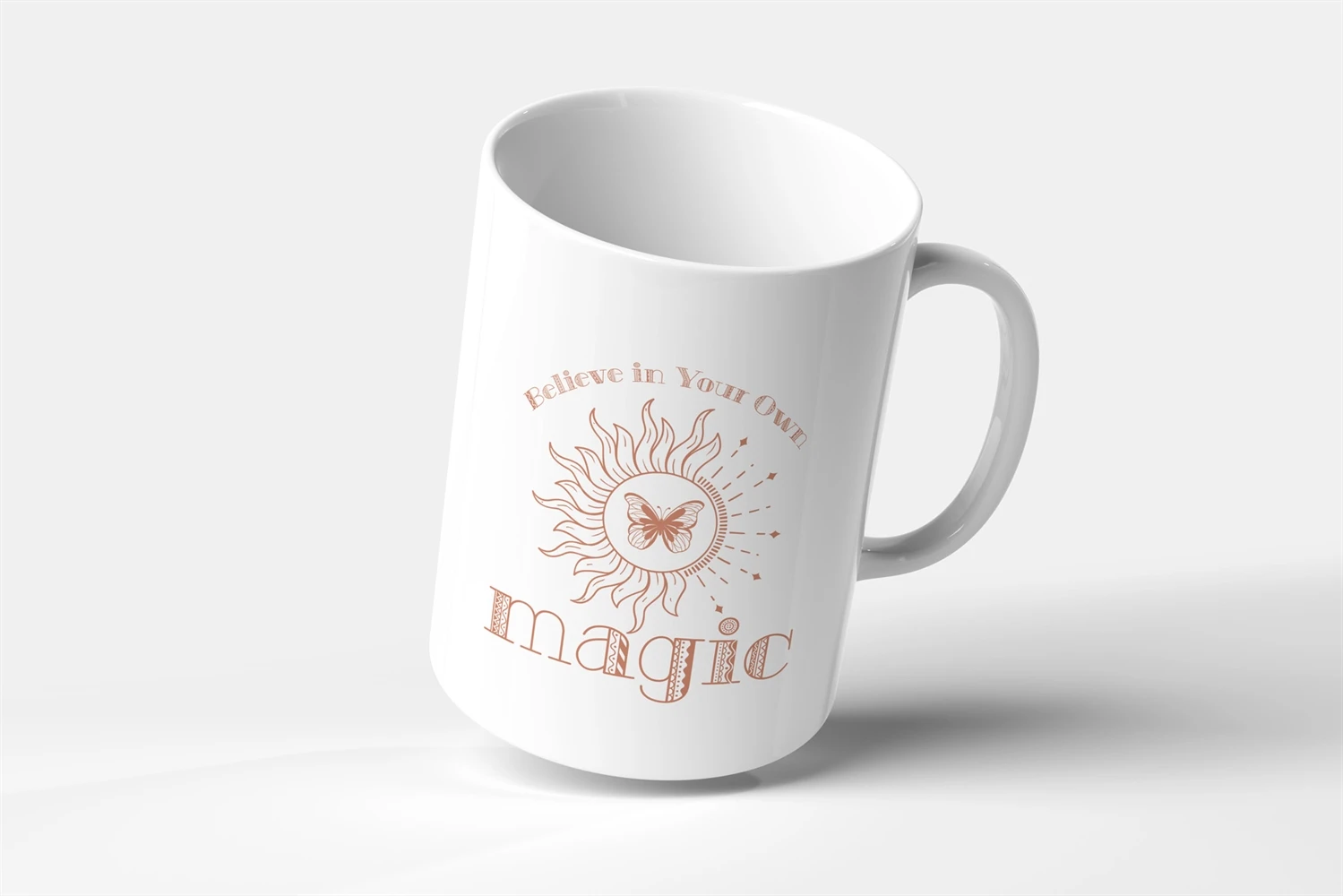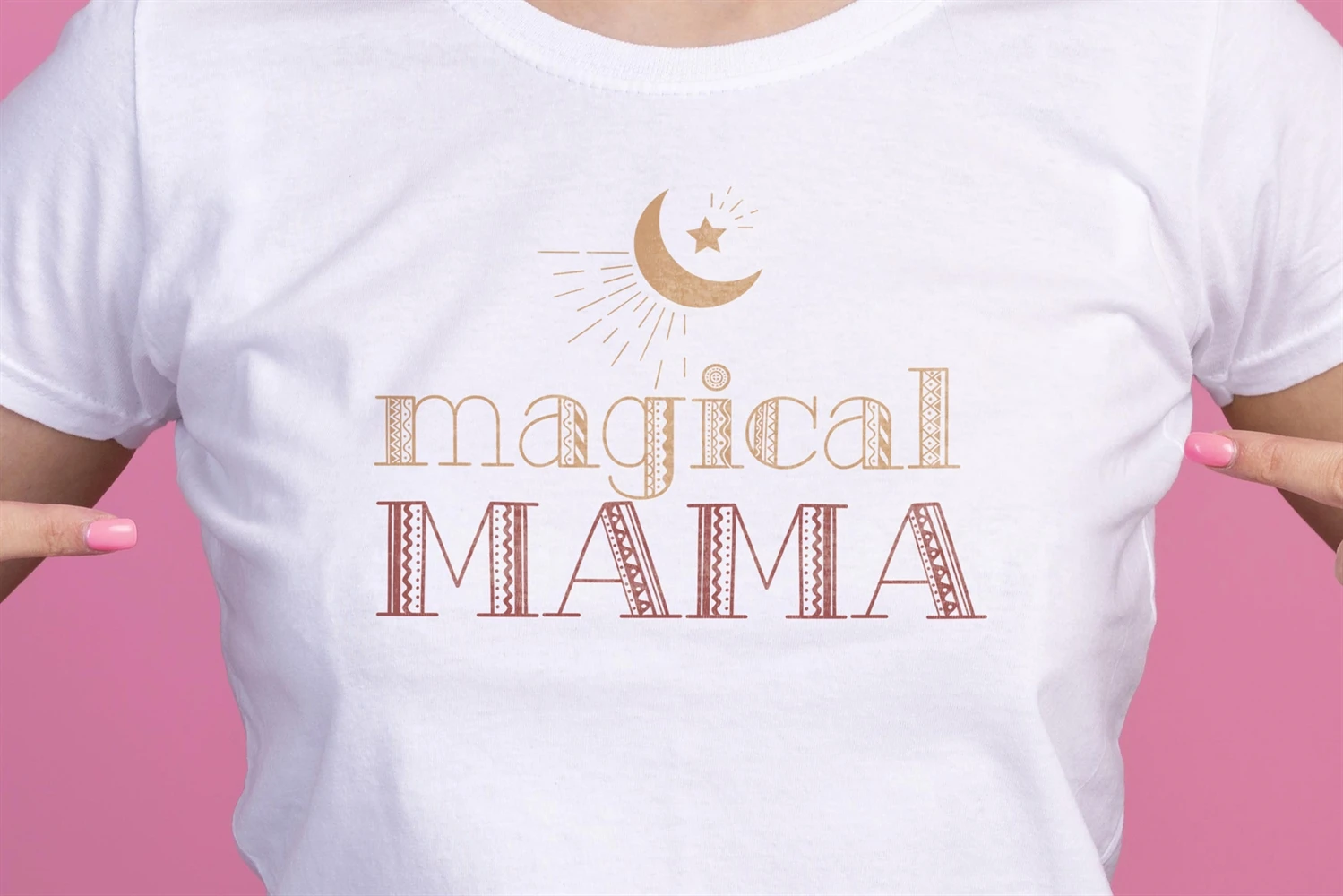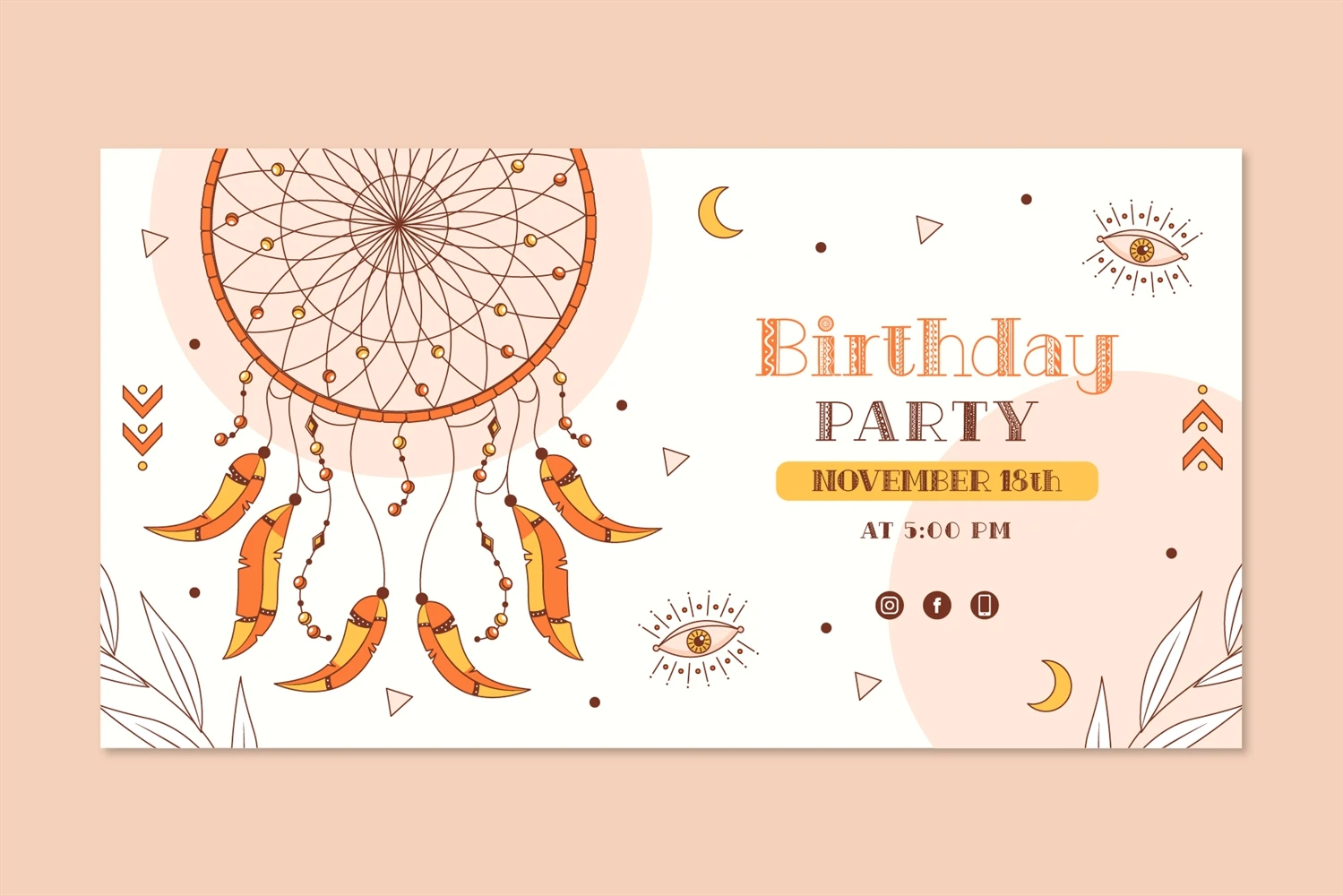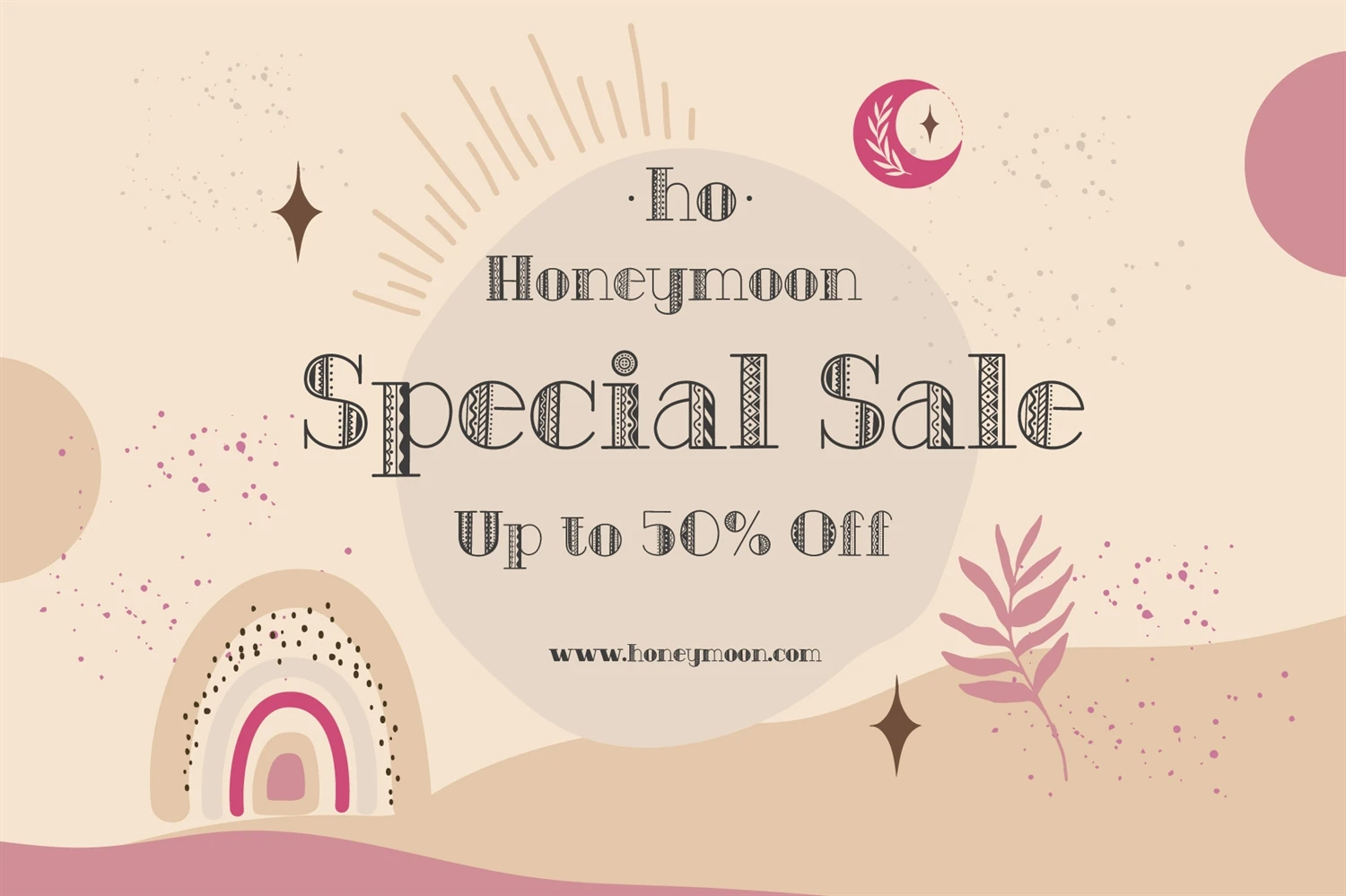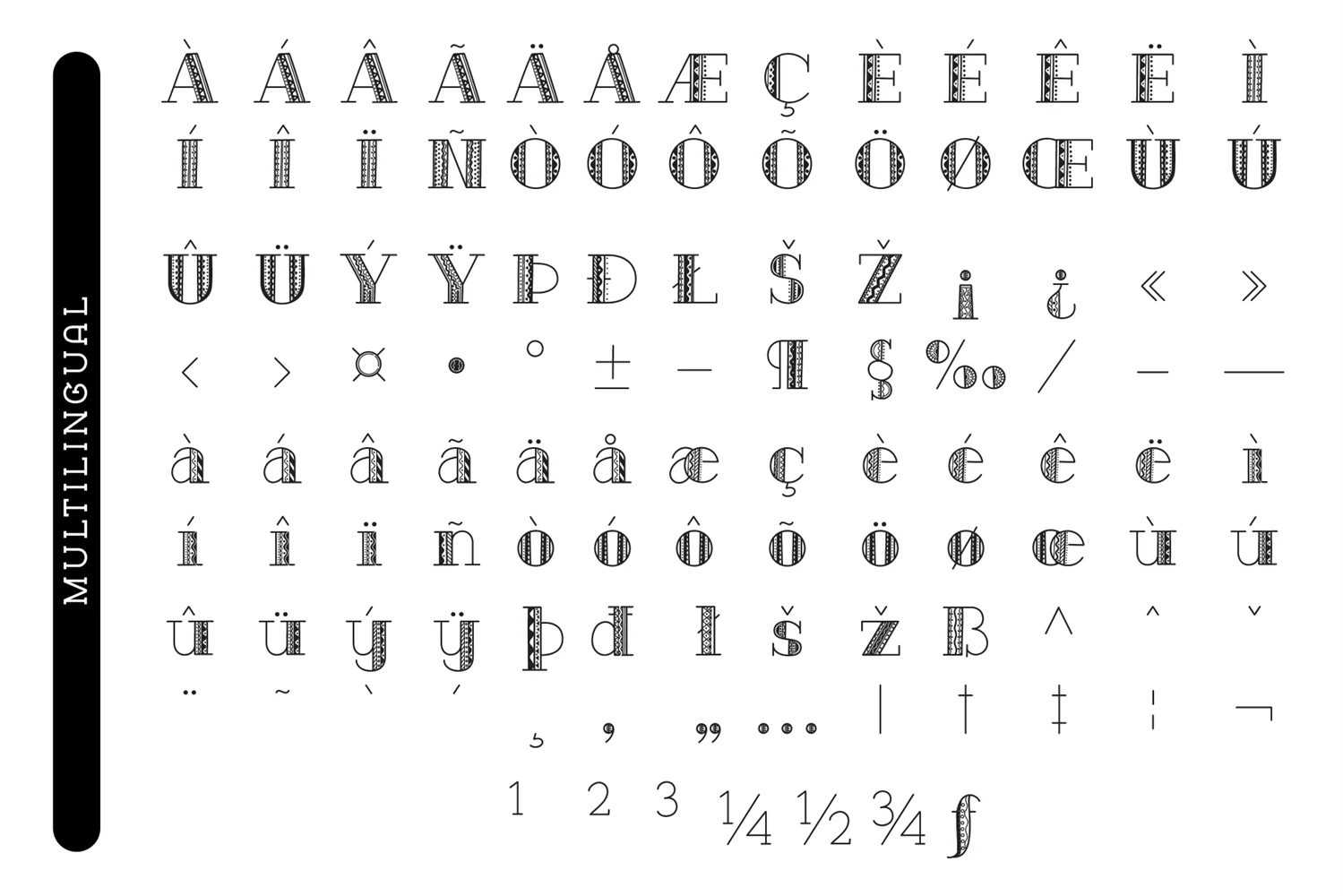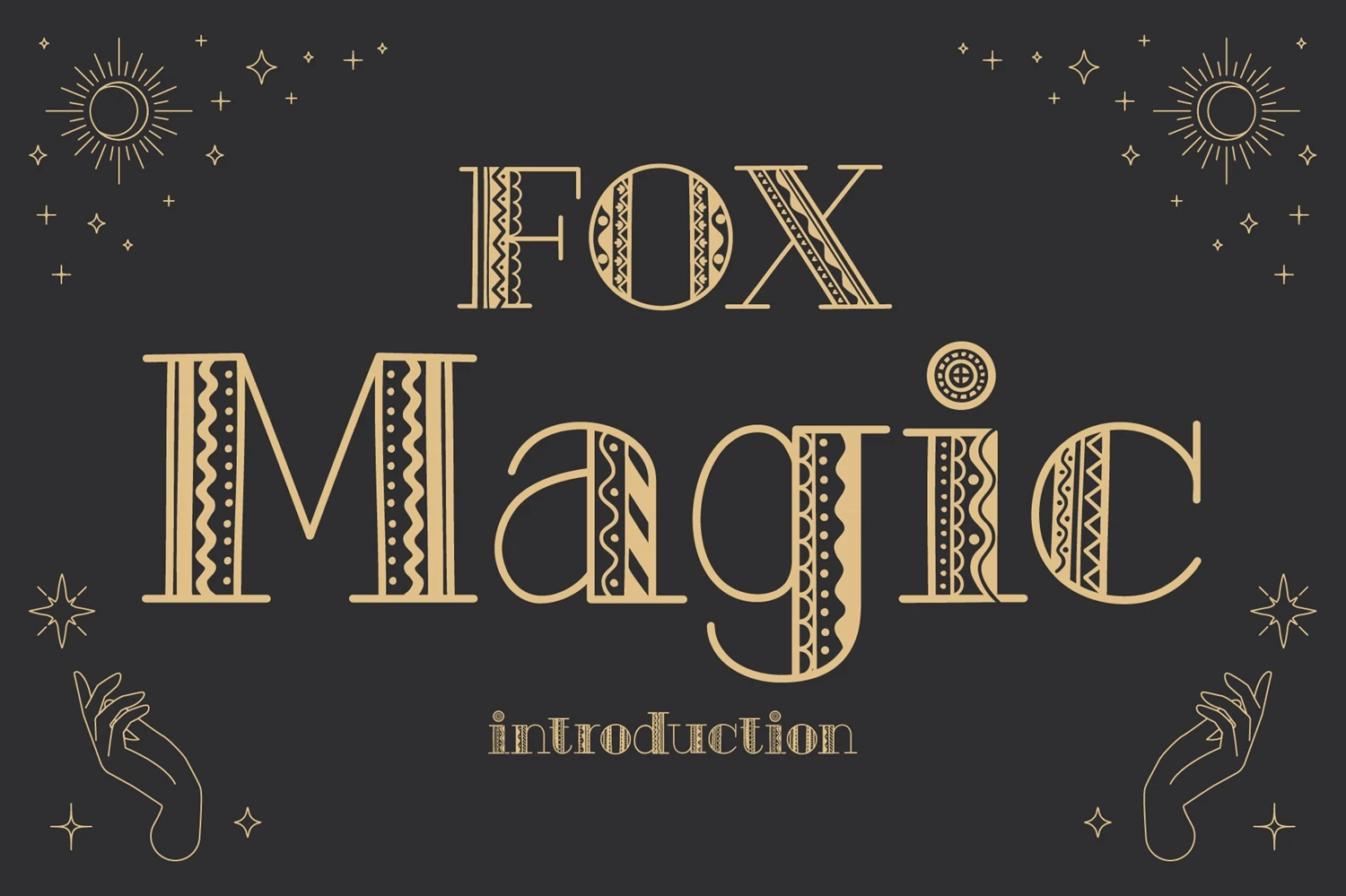
Fox Magic is a versatile and visually stunning decorative font designed to add fun and beautiful textures to your creative projects. Whether you're creating blog posts, logos, branding, ads, invitations, greeting cards, planners, photo albums, decorations, or anything else, Fox Magic is a great choice to add a touch of charm and whimsy to your designs.